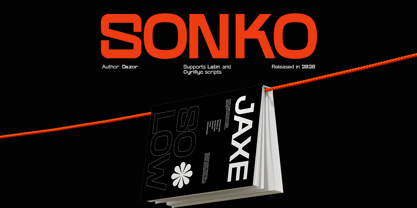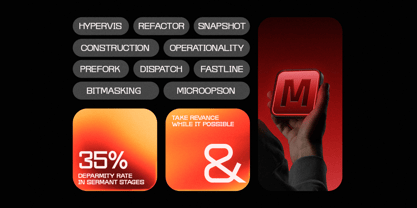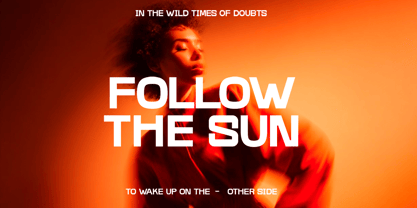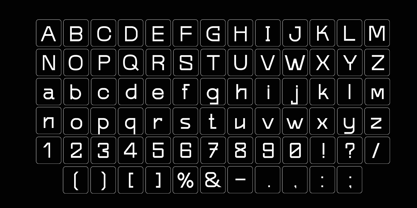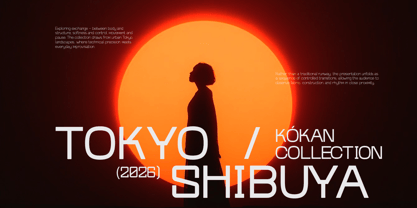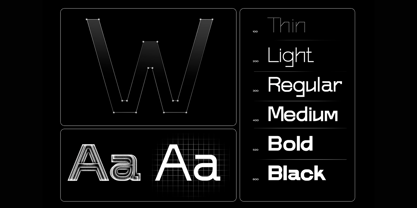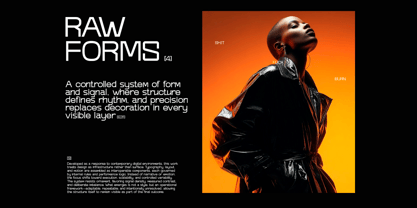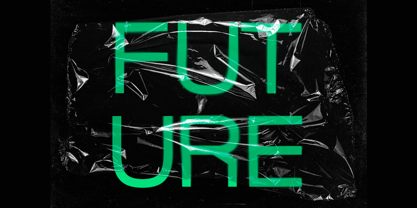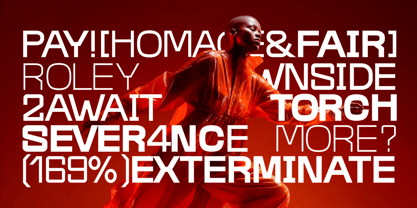
Sonko
The Sonko Font Family was designed by Anthony Malina and published by Oka Ayase. Sonko contains 6 styles and family package options. More about this family
SONKO is a contemporary sans serif built around restraint, clarity, and structural balance. Its forms are simple, slightly brutalist, and deliberately reduced, avoiding decoration in favor of function and consistency.
Designed as a variable type system, SONKO adapts smoothly across weights and widths while preserving a steady rhythm and controlled contrast. The construction favors open shapes, stable proportions, and a neutral tone that performs reliably in both digital and print environments.